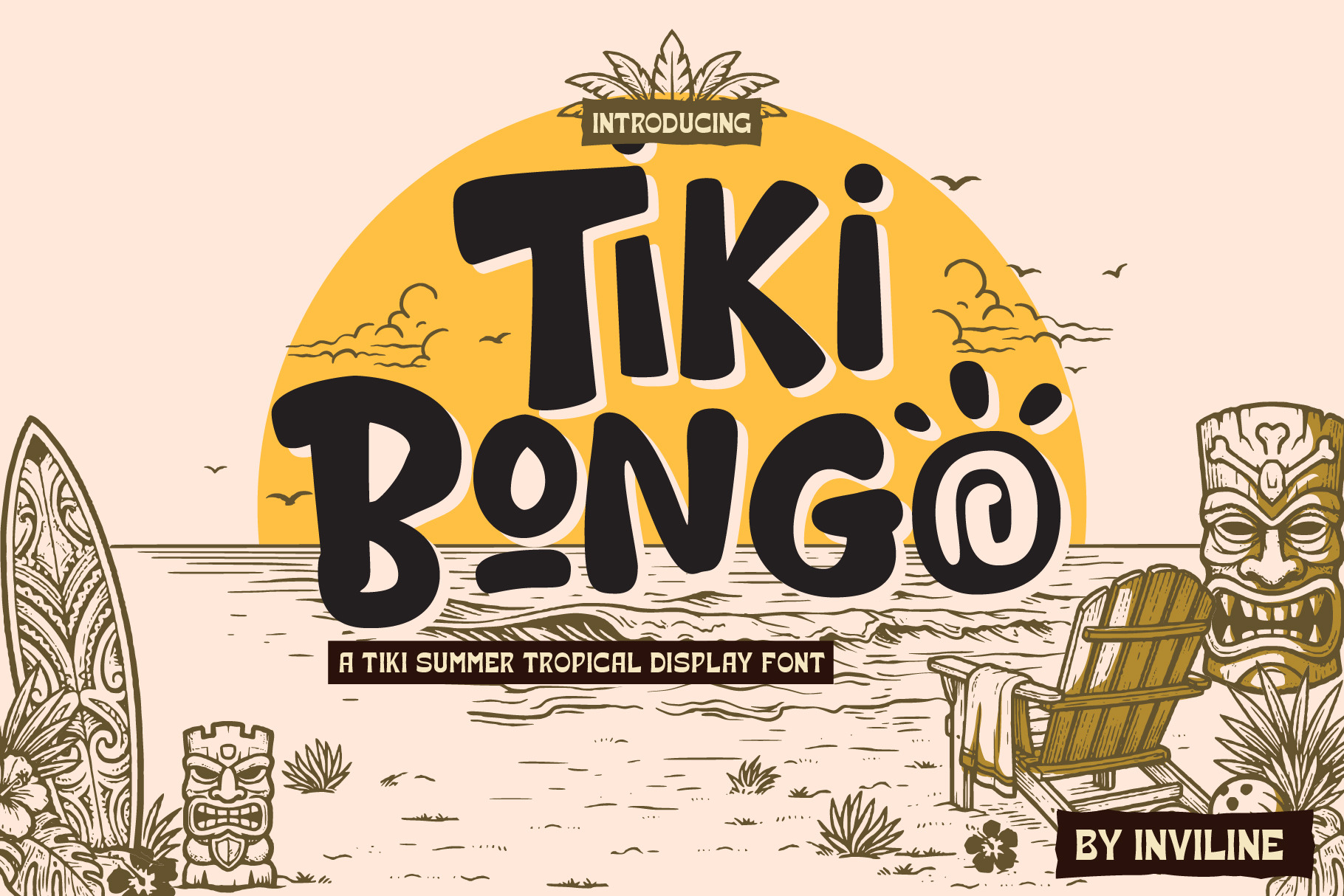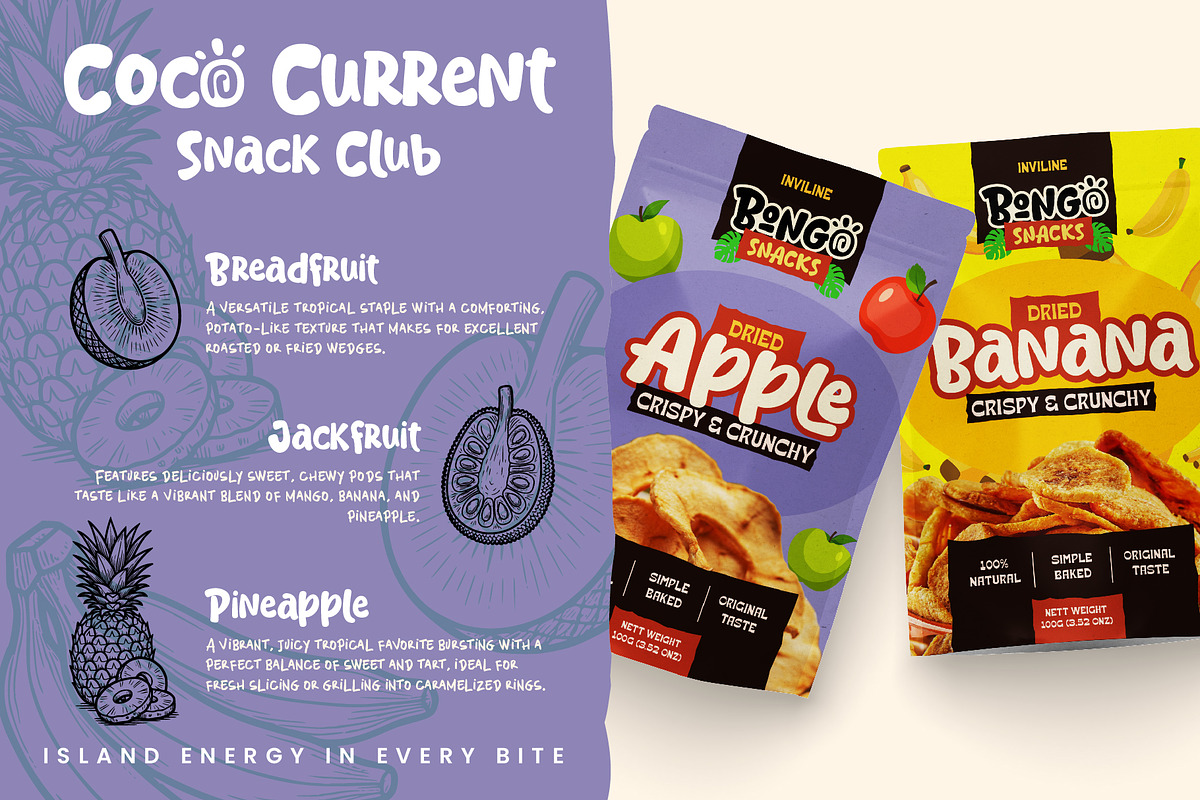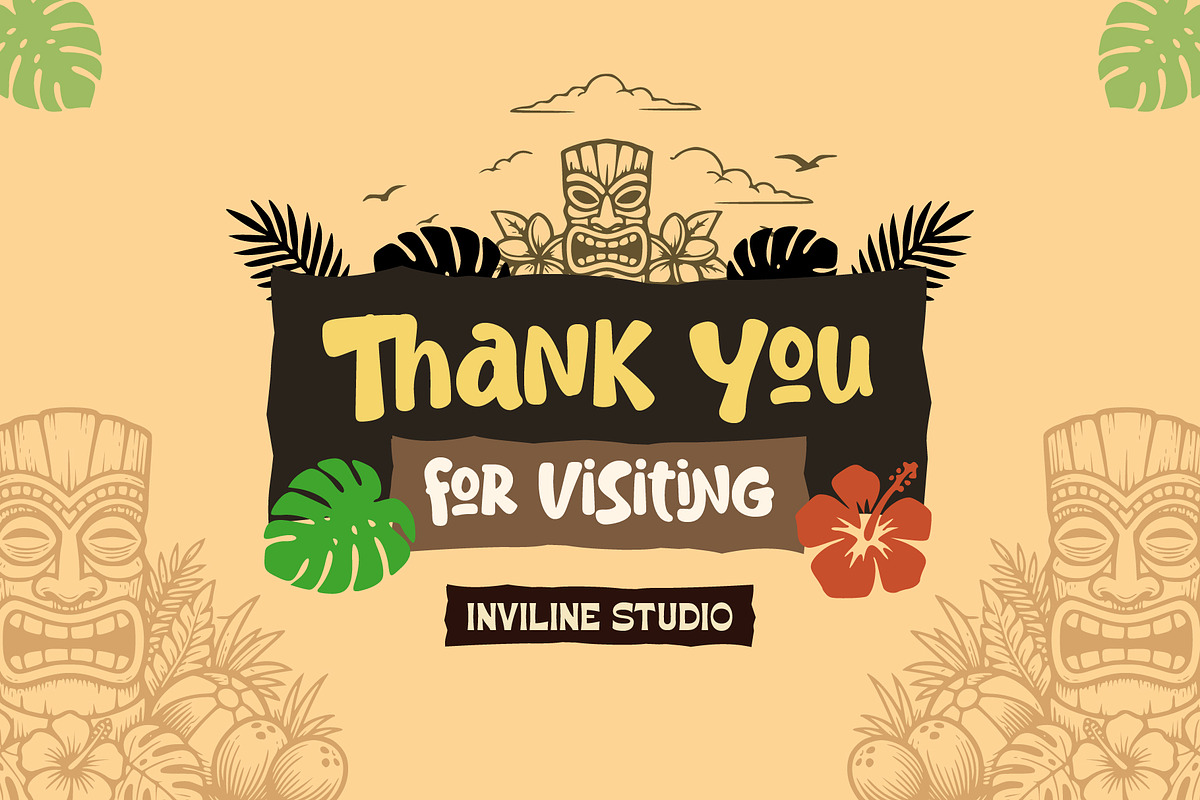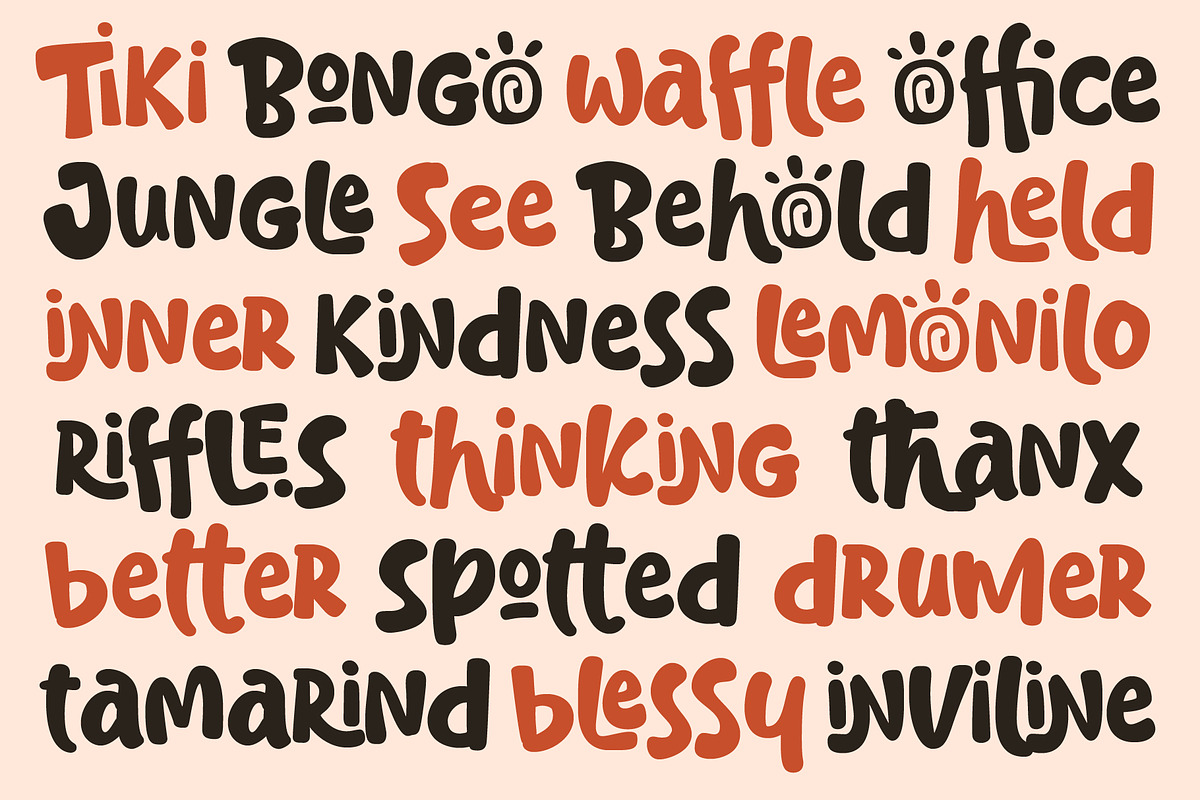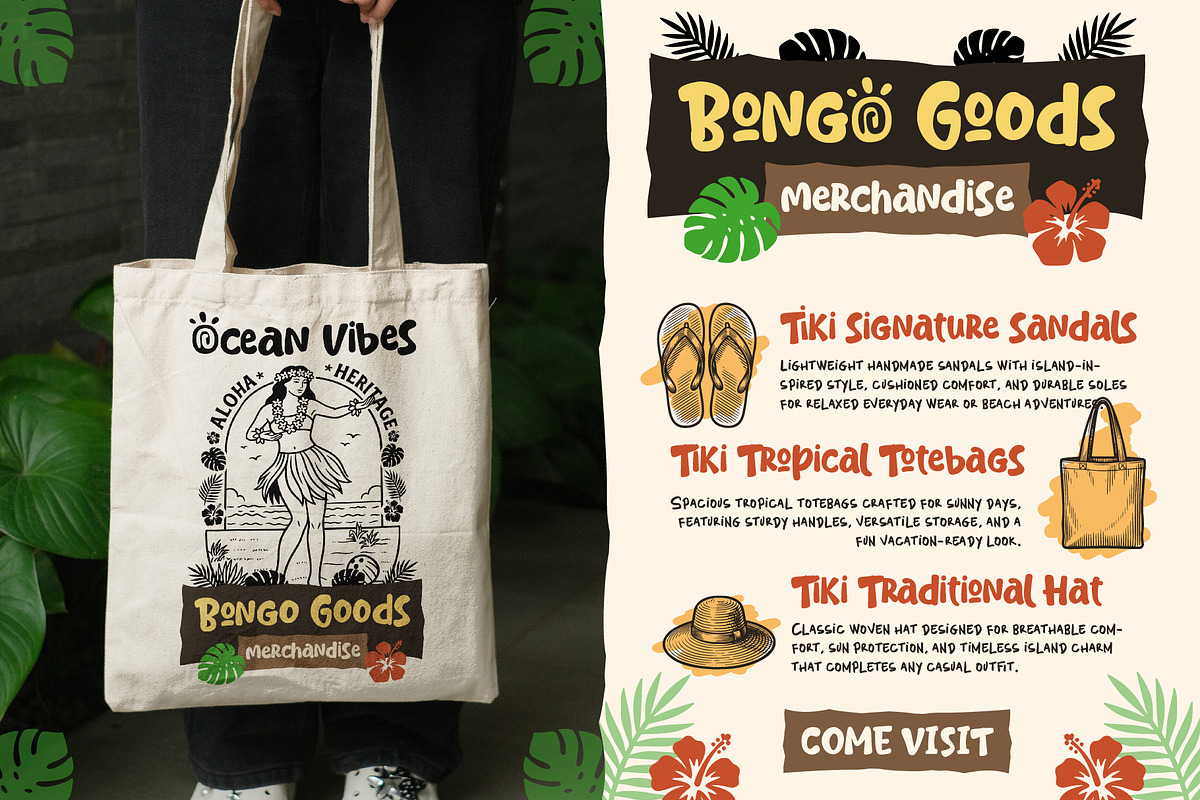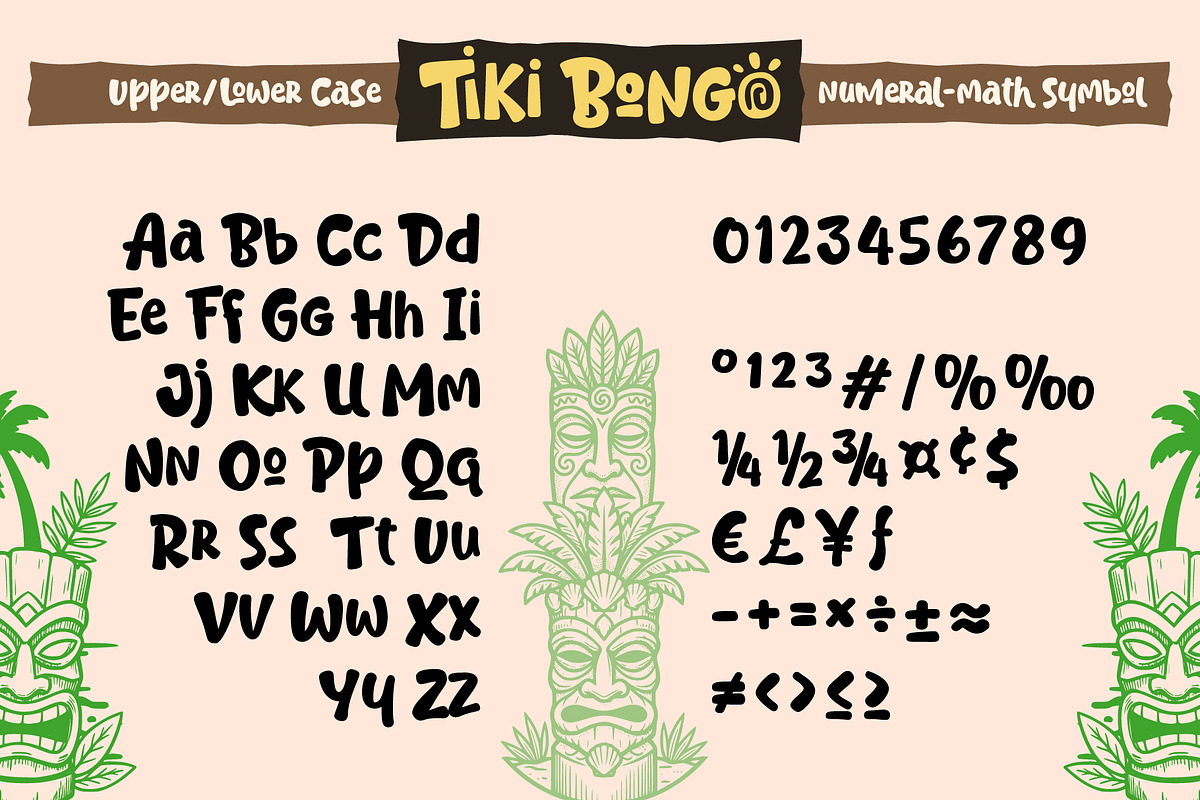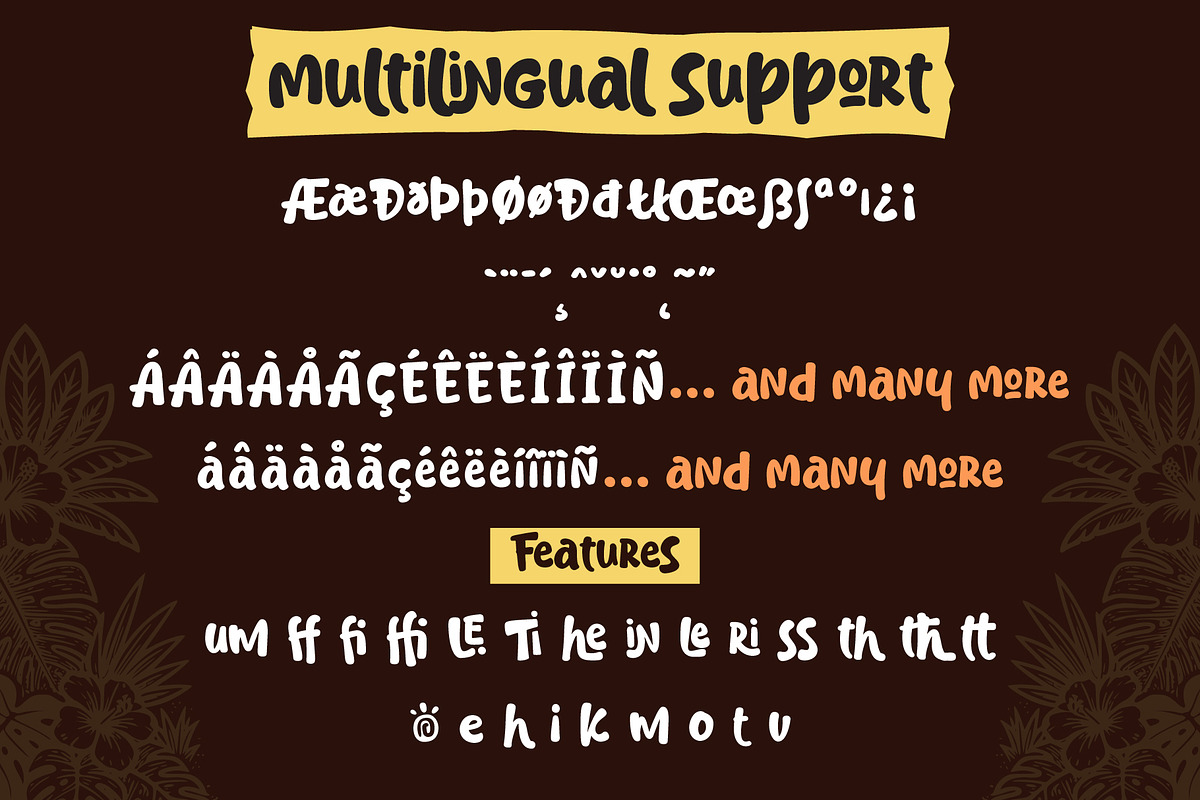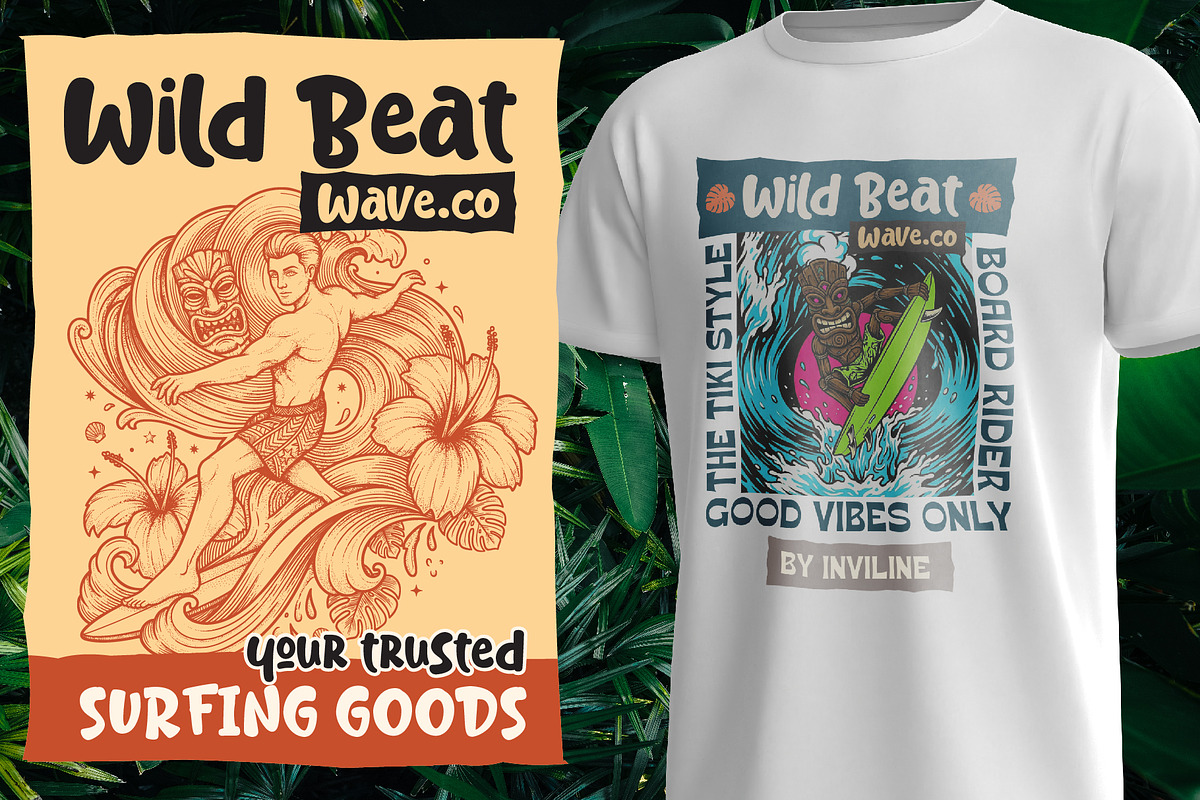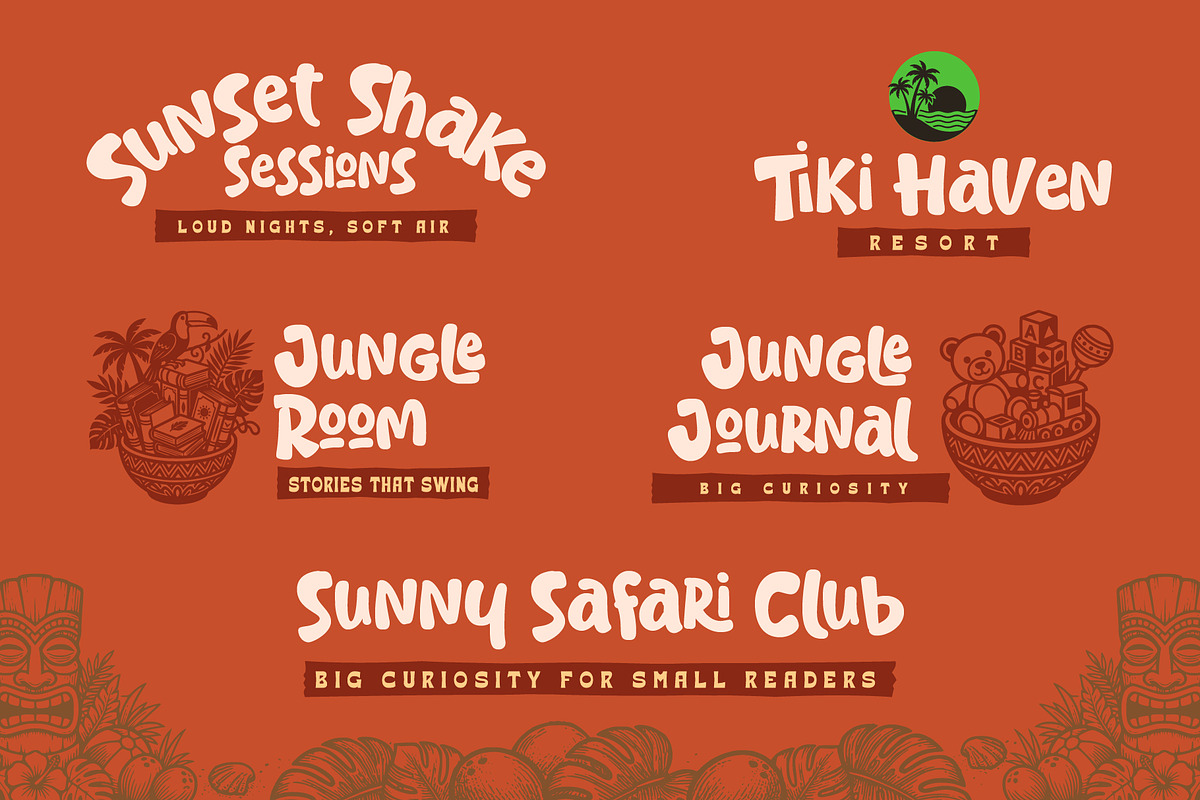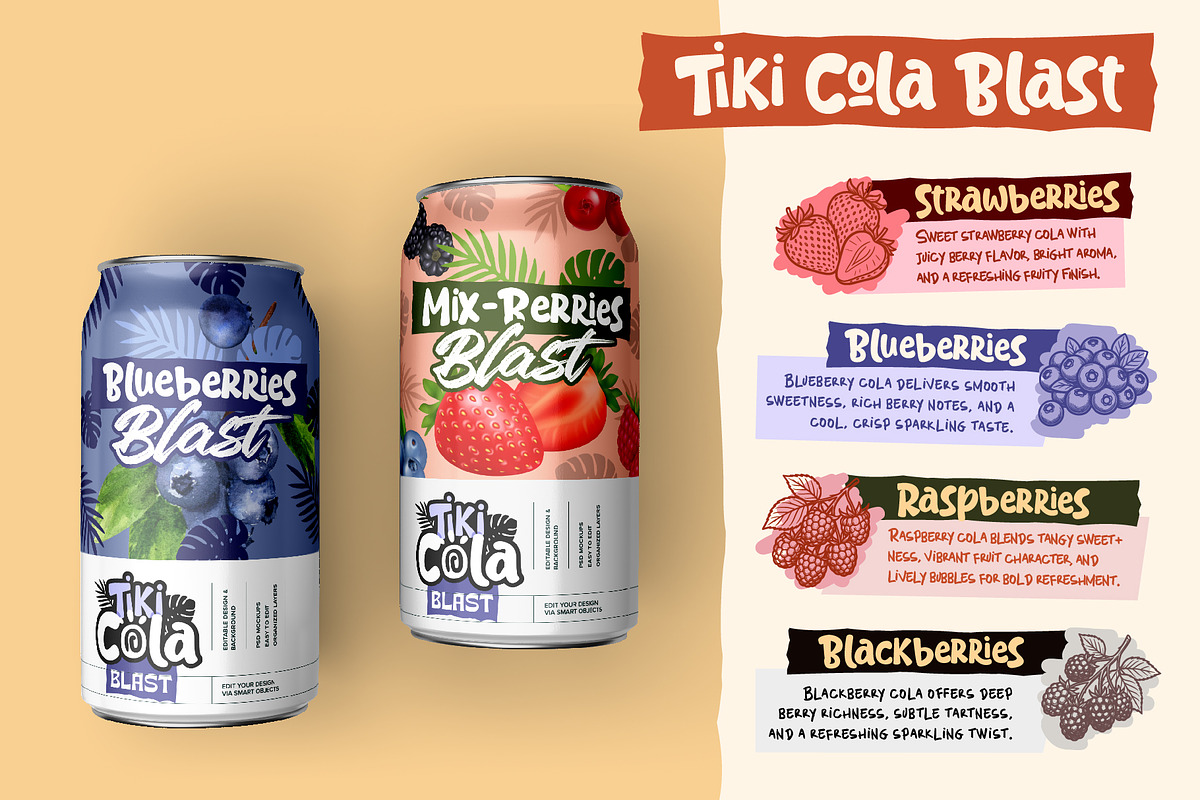
Tiki Bongo - Tropical Display Font
Tiki Bongo is a playful tropical display font inspired by island culture, summer festivals, and vibrant beach vibes. With its bold, organic shapes and handcrafted feel, this typeface brings a fun and energetic personality to your designs.
Perfect for eye-catching headlines and creative branding, Tiki Bongo delivers a warm, exotic look that stands out effortlessly. Whether you're working on food packaging, event posters, or merchandise, this font adds a joyful tropical twist to any project.
Unique Decorative Characters
Tropical & Summer Branding
Food & Beverage Design
Festival & Event Posters
Merchandise & Apparel
Social Media Content
Bold & playful character
Handcrafted organic shapes
Easy to read display style
Tropical & exotic vibes
Great for headlines